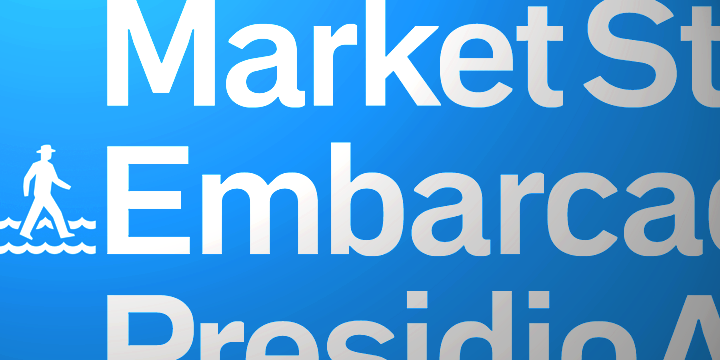
As is often the case with a type design that develops over several years, Embarcadero isn’t the realization of a specific concept. In the ’90s Mark van Bronkhorst began digitizing a blocky slab serif from the Victorian era, which was then set aside for many years. He later revisited the design, paring it down to its bare essentials, and as more time passed, it evolved from a grid-based outline to curves that echoed the rigid skeleton of the original. Eventually it became a complete family with all the readability requirements of a text sans serif, yet maintaining the subtle eccentricities of its inspiration.